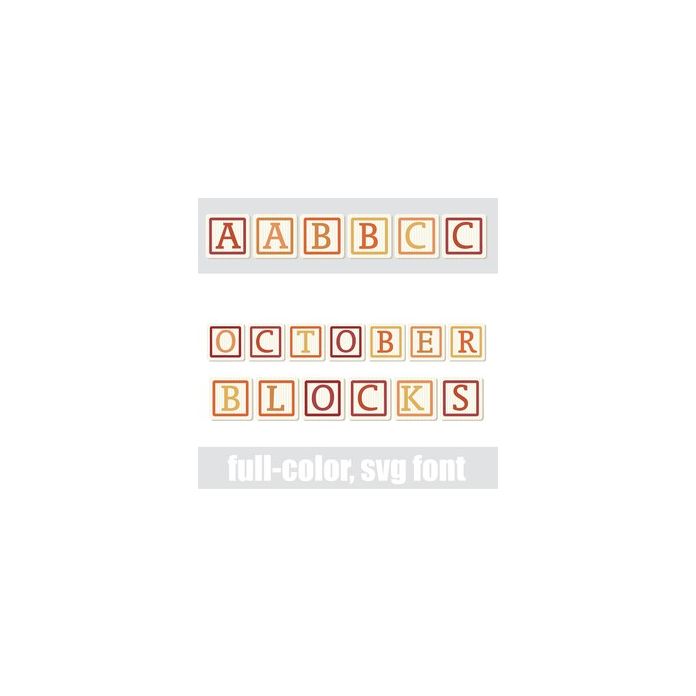
This full-color font features children's blocks in an autumn color palette. There is an alt case w/ additional colors you can access through your system or Silhouette's glyph map.